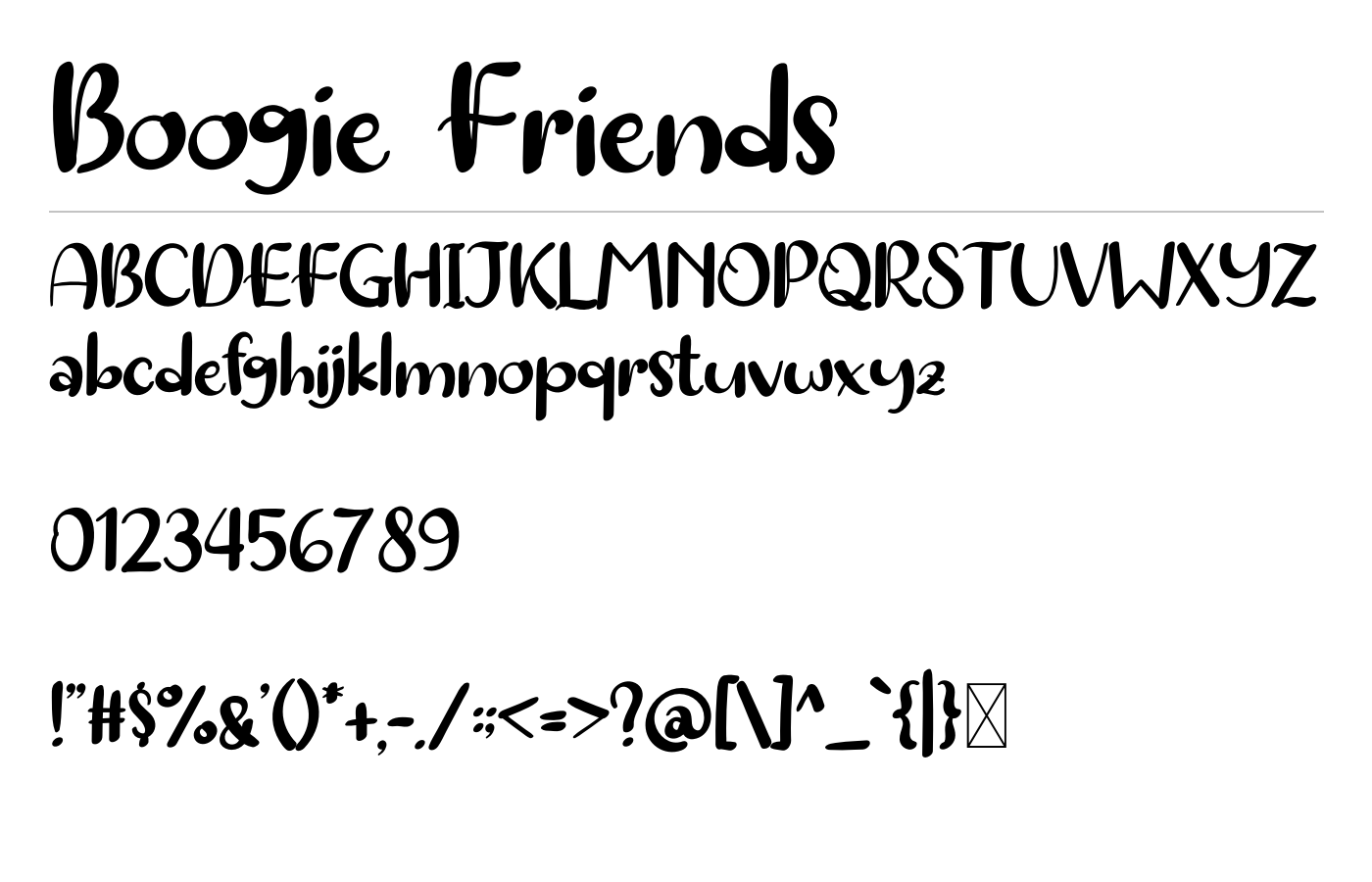
Boogie Friends is a lively and playful sans serif font with a hand-drawn feel, featuring rounded, slightly irregular letterforms that add a friendly and approachable vibe. Its medium weight and moderate contrast make it versatile for creative designs, while its unique, quirky shapes give it personality and charm. This font is perfect for children's books, casual branding, posters, and any project that needs a fun, informal touch.
Boogie Friends Font